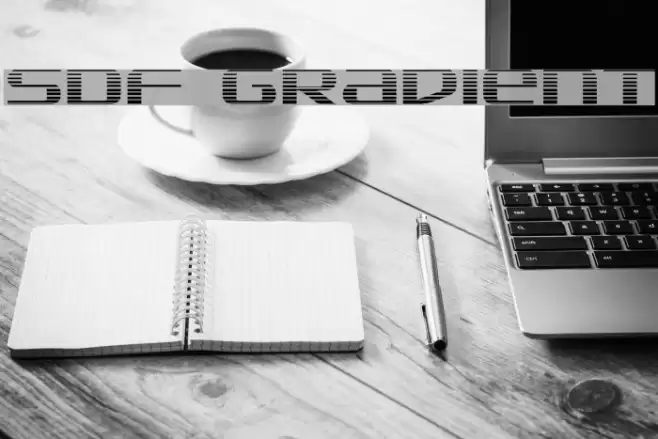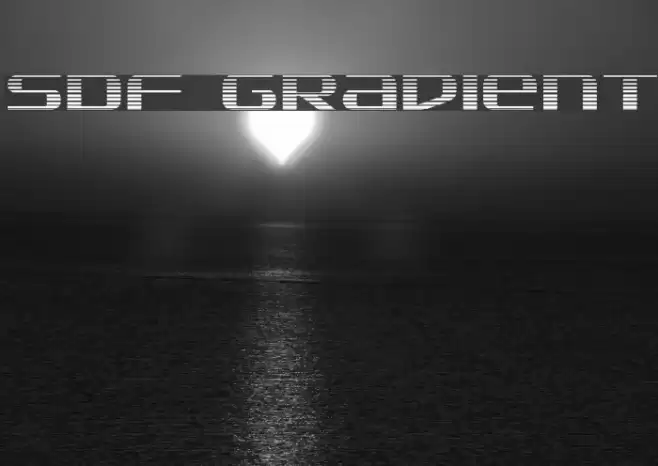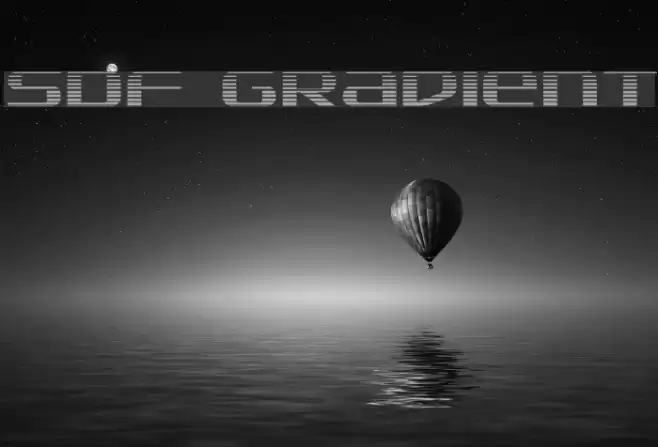
SDF Gradient Font
SDF Gradient Description
This font features a modern, futuristic design with a unique gradient effect created by horizontal lines that form each character. The letters are bold and geometric, with a distinct digital aesthetic that suggests movement and speed. The uppercase and lowercase letters maintain a consistent style, while the numerals and special characters are designed to match the overall theme. The font's structure is clean and precise, making it suitable for projects that require a contemporary and tech-savvy look.
A modern, futuristic font with a gradient effect and geometric design from Uncategorized fonts.
- Proposed Projects: Ideal for technology branding, digital media, video game titles, and futuristic posters.